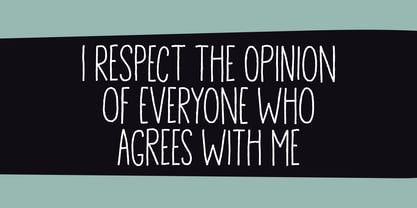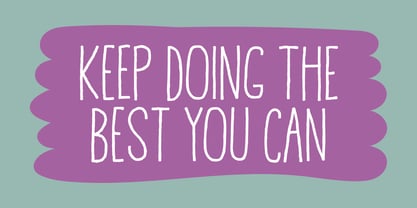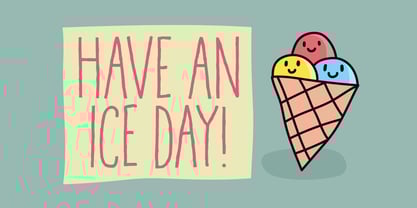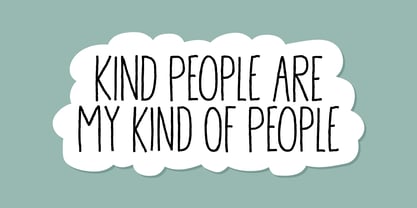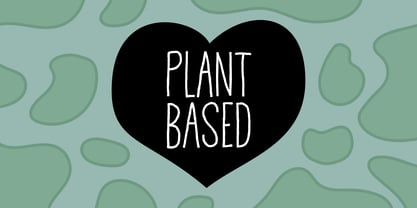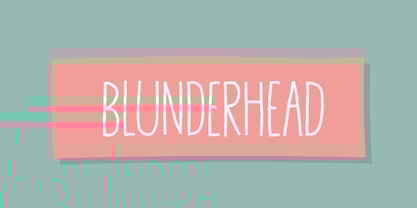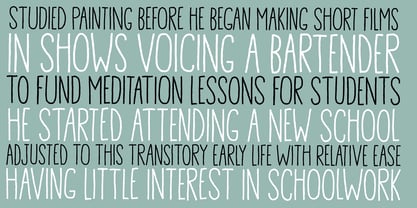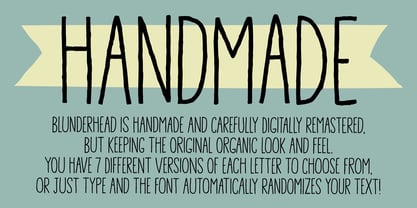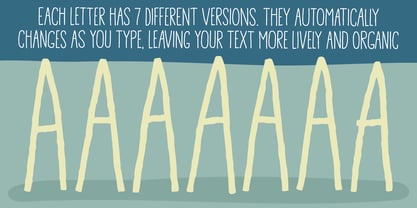
Blunderhead
von PizzaDude.dk
Die Schriftfamilie Blunderhead wurde von Jakob Fischer entworfen und von PizzaDude.dk veröffentlicht. Blunderhead enthält 2 Stile und Familienpaketoptionen.
Sometimes you need your message sent out in a clear and legible way. Maybe you will need a handmade and organic look as well.
Blunderhead is handmade and then carefully digitally remastered, however the original organic look and feel is kept. Furthermore I have made 7 different versions of each letter from which you can pick your favourites, or just type ahead and let the font randomly choose - making your text look even more organic and lively!